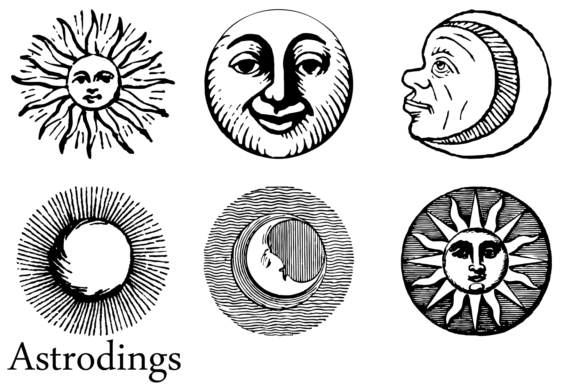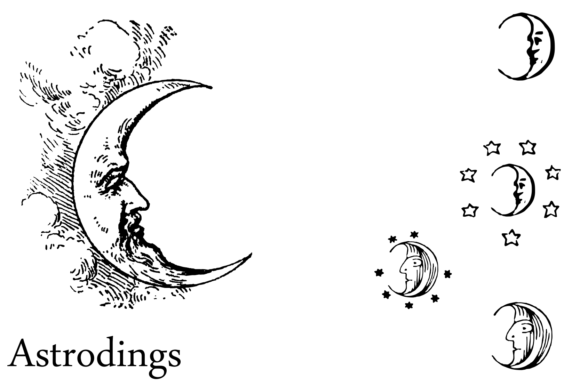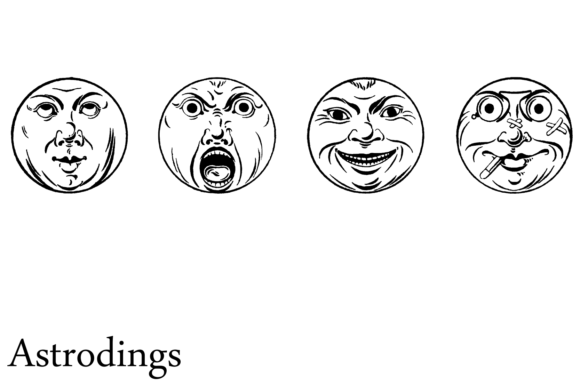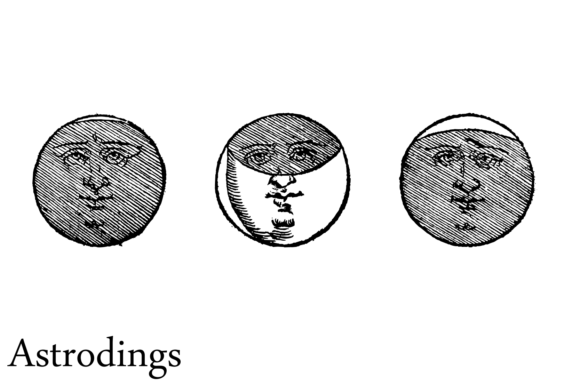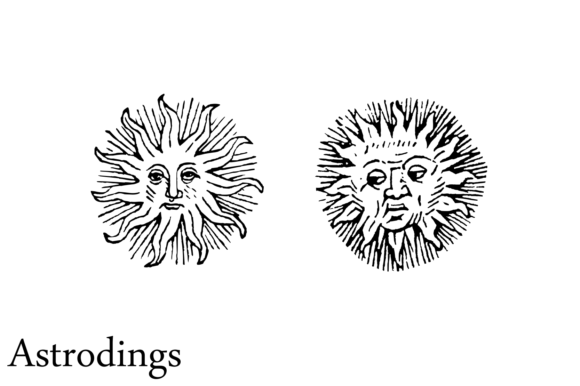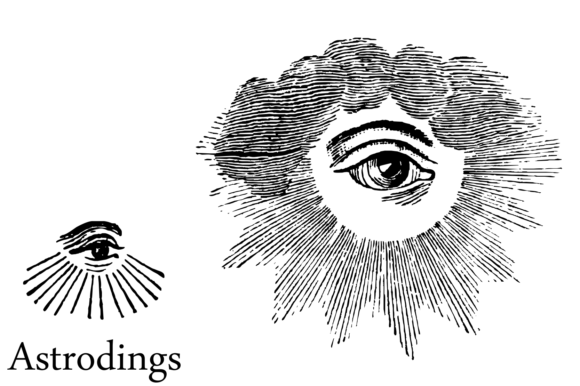
Astrodings Font
About Astrodings Font
Astrodings is a remarkable vintage dingbat font that takes you on a journey through the cosmos, bringing together astrological, weather, and cosmic elements in a unique and captivating way. This font is a treasure trove of celestial symbols, allowing you to add a touch of mystique and retro charm to your designs.
With Astrodings, you’ll find a wide range of vintage-inspired icons and glyphs related to astrology, weather patterns, and cosmic phenomena. From zodiac signs and planetary symbols to suns, moons, stars, and weather indicators, this dingbat font offers a rich collection of visuals to express your fascination with the celestial realm.
The vintage aesthetic of Astrodings adds a nostalgic and timeless appeal to your designs. The carefully crafted glyphs capture the essence of retro design styles, evoking a sense of wonder and curiosity reminiscent of earlier eras. Whether you’re working on editorial layouts, posters, invitations, or any other creative project, Astrodings brings a touch of old-world charm that stands out from the crowd.
Astrodings is not only a fantastic choice for astrology enthusiasts, but it also opens up possibilities for designers, artists, and anyone looking to add a touch of cosmic inspiration to their work. Whether you’re exploring the mysteries of the zodiac, creating weather-related graphics, or simply embracing the enchantment of the cosmos, Astrodings offers a versatile and charming selection of dingbats to enhance your creative projects.
So, venture into the vintage realm of astrology, weather, and cosmic wonders with Astrodings. Let its unique and captivating dingbats take you on a celestial journey, infusing your designs with a touch of nostalgia, intrigue, and timeless beauty. Unleash your creativity and unlock the magic of the stars with Astrodings.